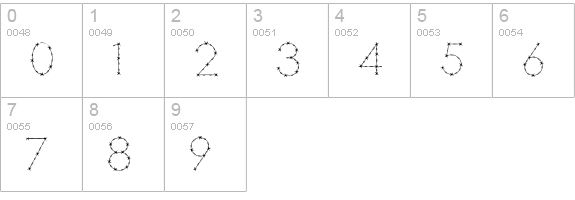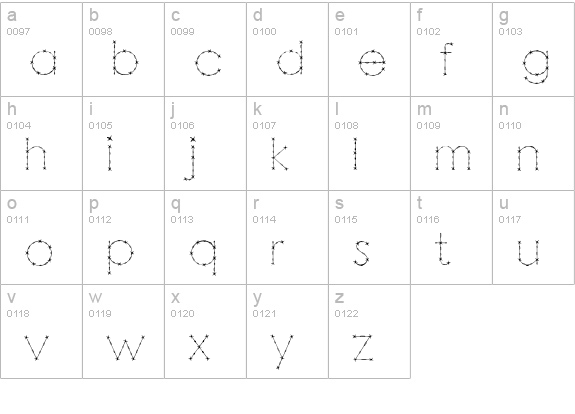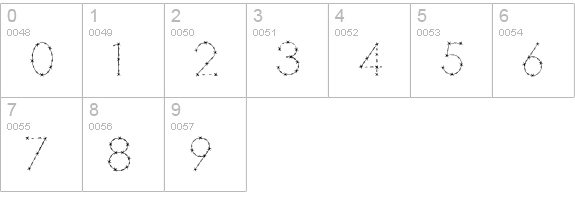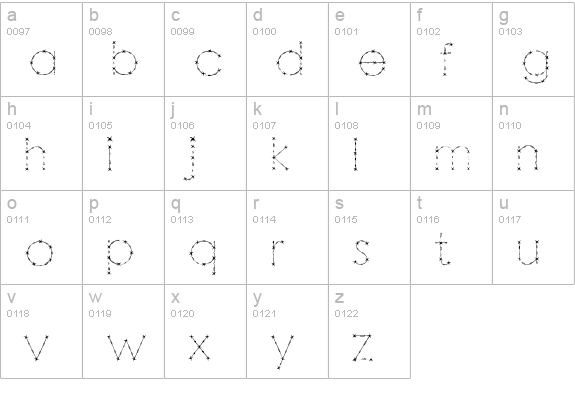
Barbarello Font Details
Barbarello font is a stunning display typeface that exudes elegance and charm. With its intricate details and graceful curves, Barbarello is perfect for creating eye-catching designs that demand attention. This versatile font is ideal for a wide range of projects, from branding to invitations to packaging and more. The best part? Barbarello font is completely free to download at FontsMarket.com. Whether you're a seasoned designer looking to add a new font to your collection or a newcomer in need of a stylish typeface for your project, Barbarello has got you covered. Download this exquisite font today and let your creativity shine!